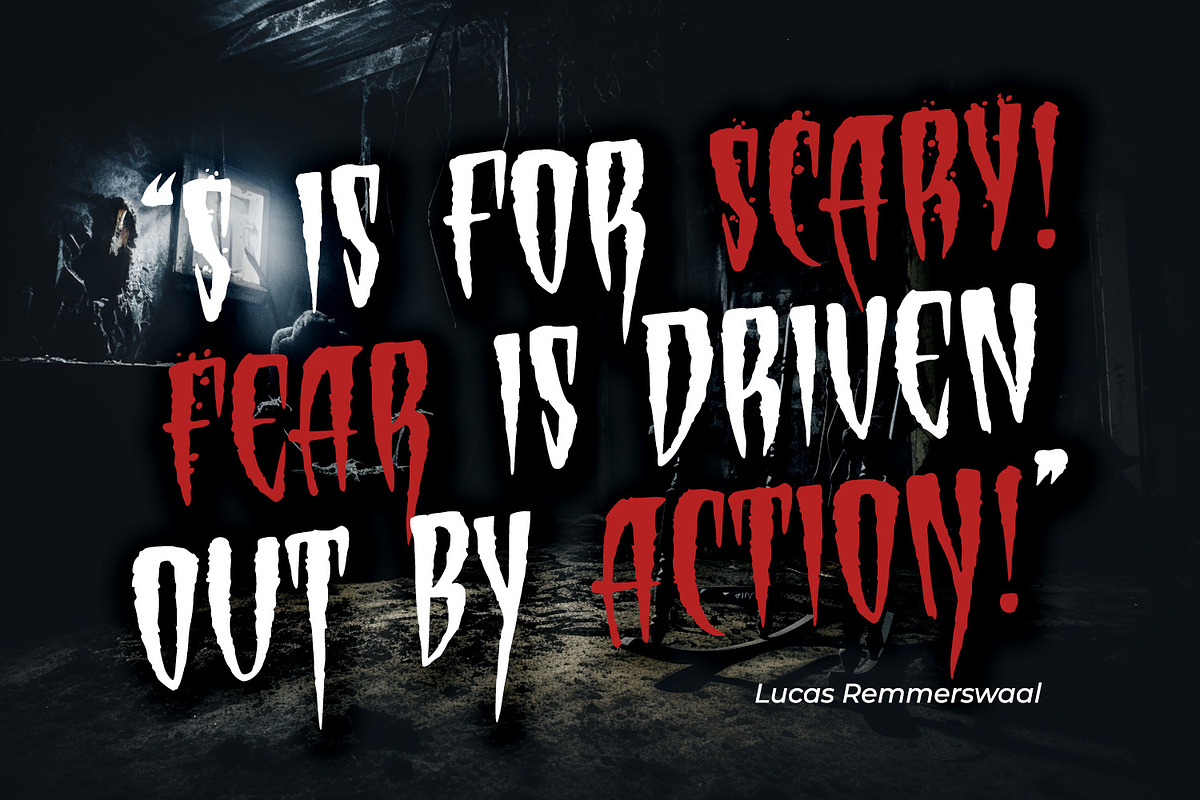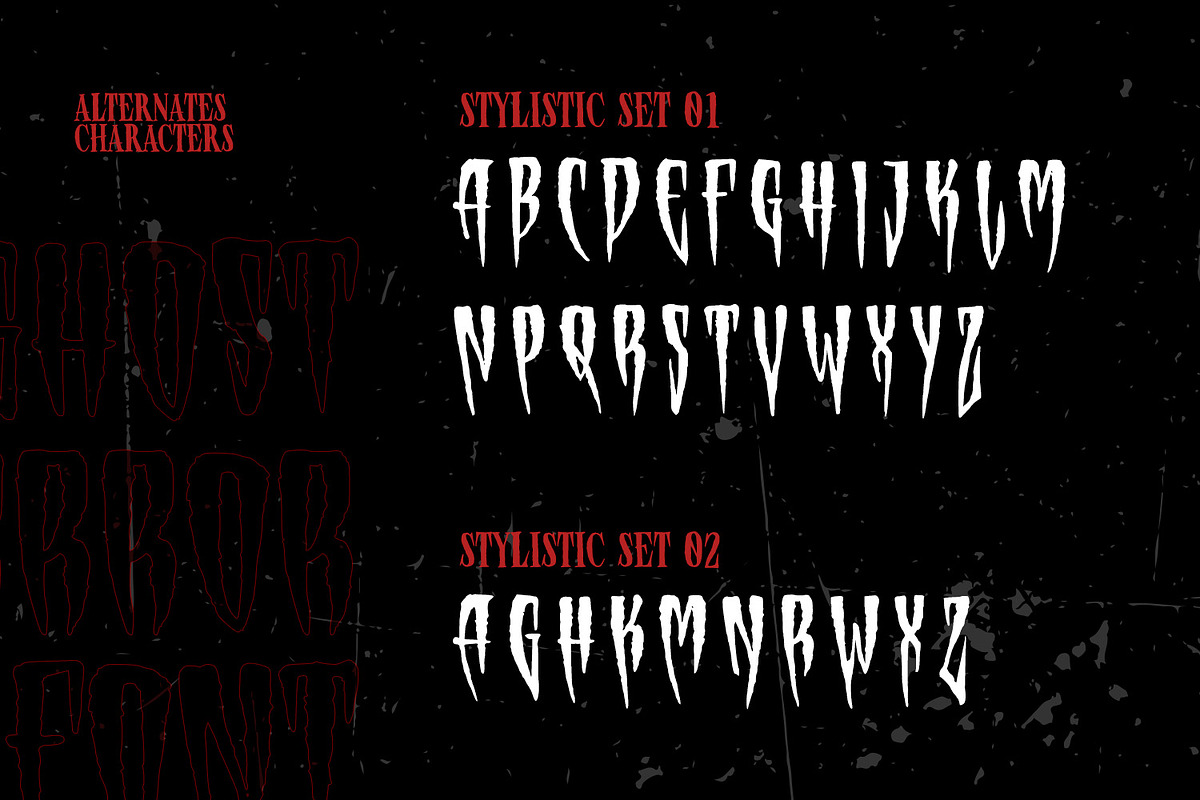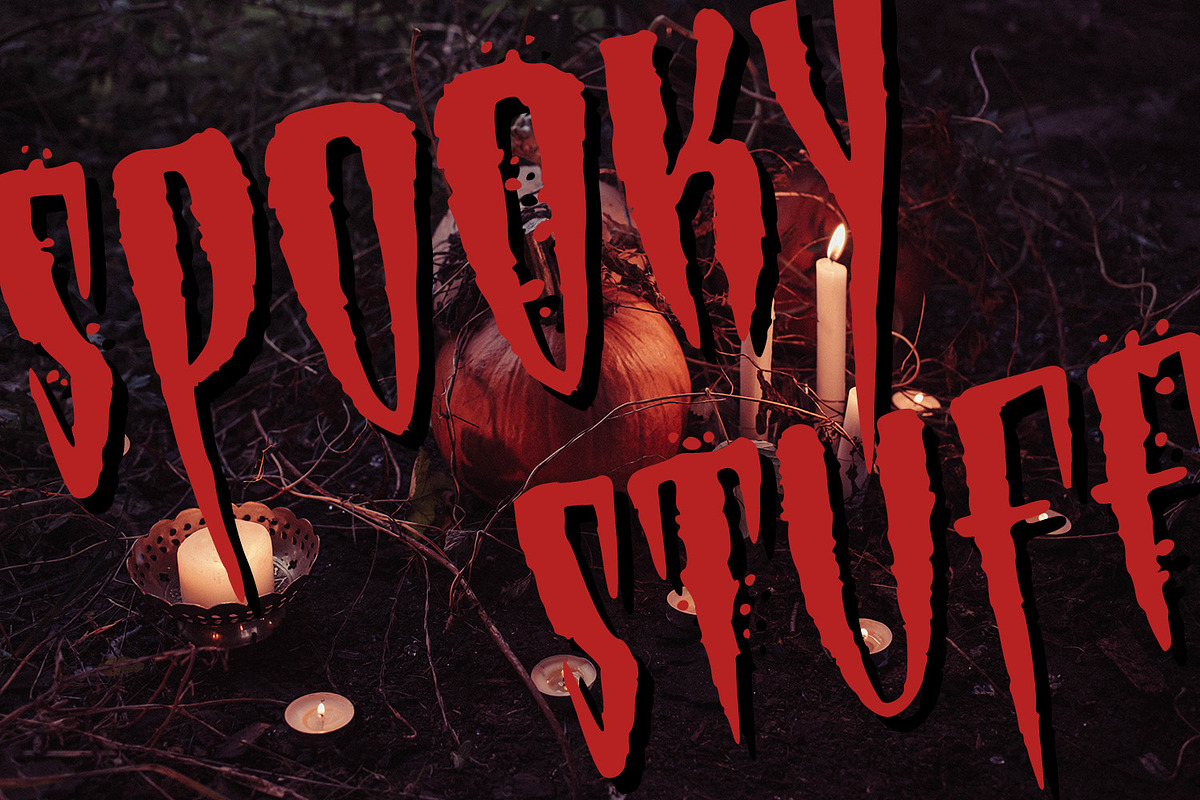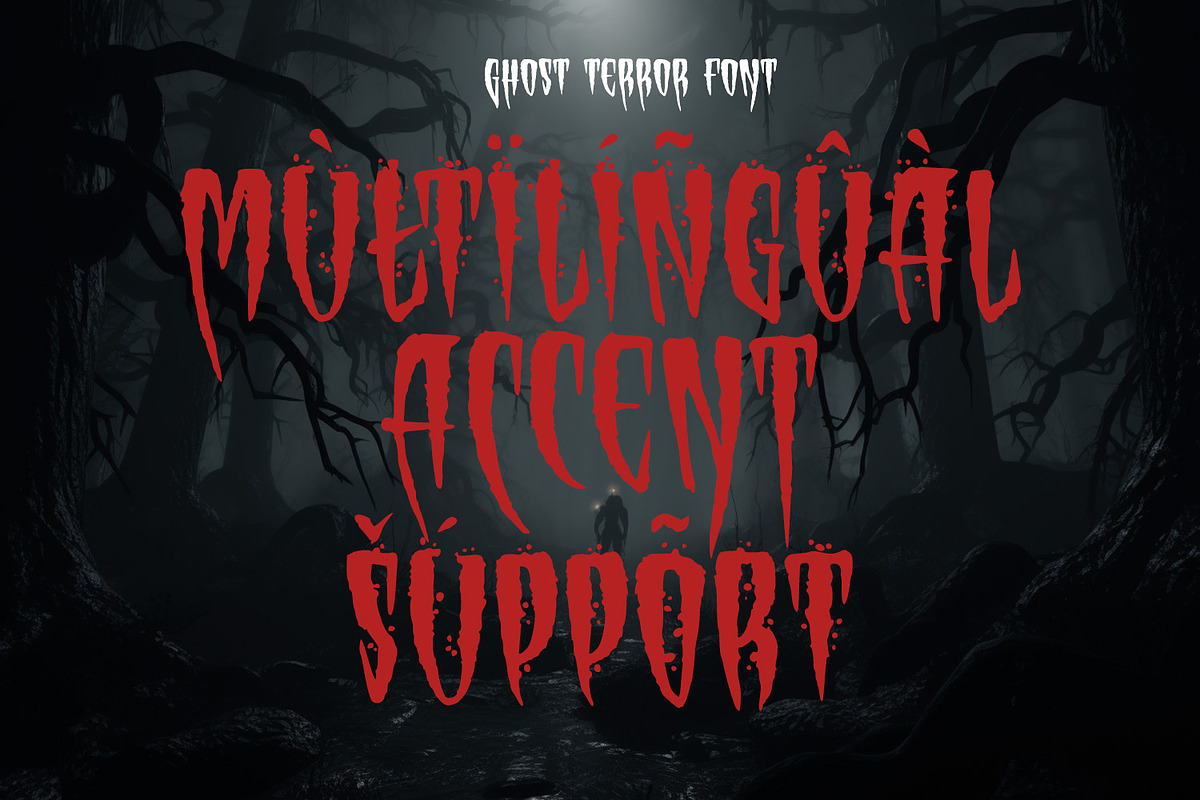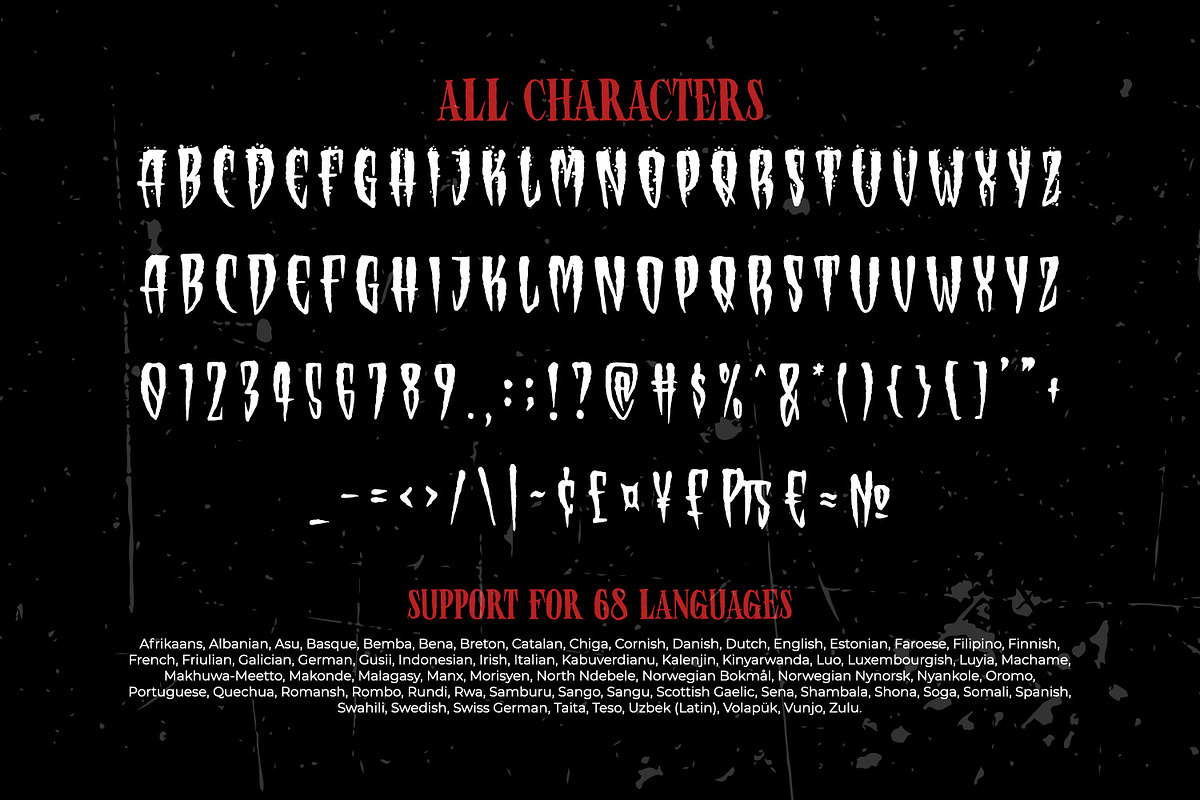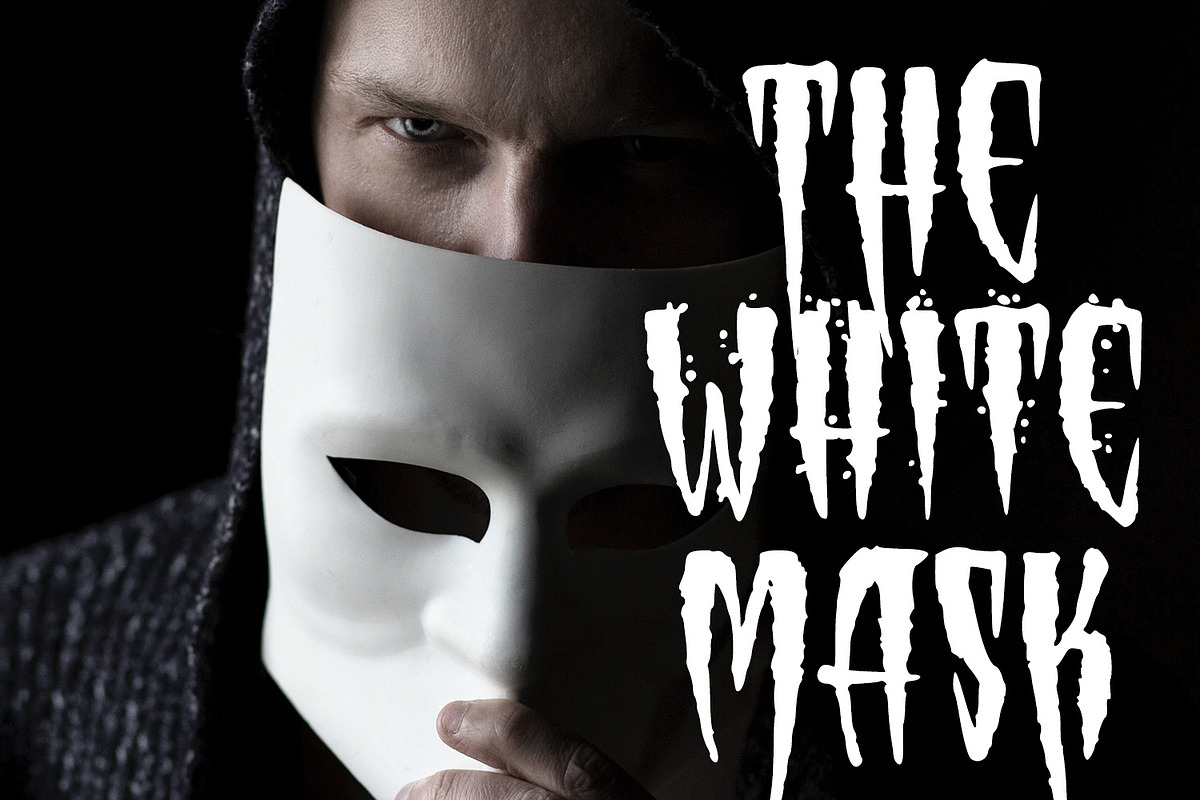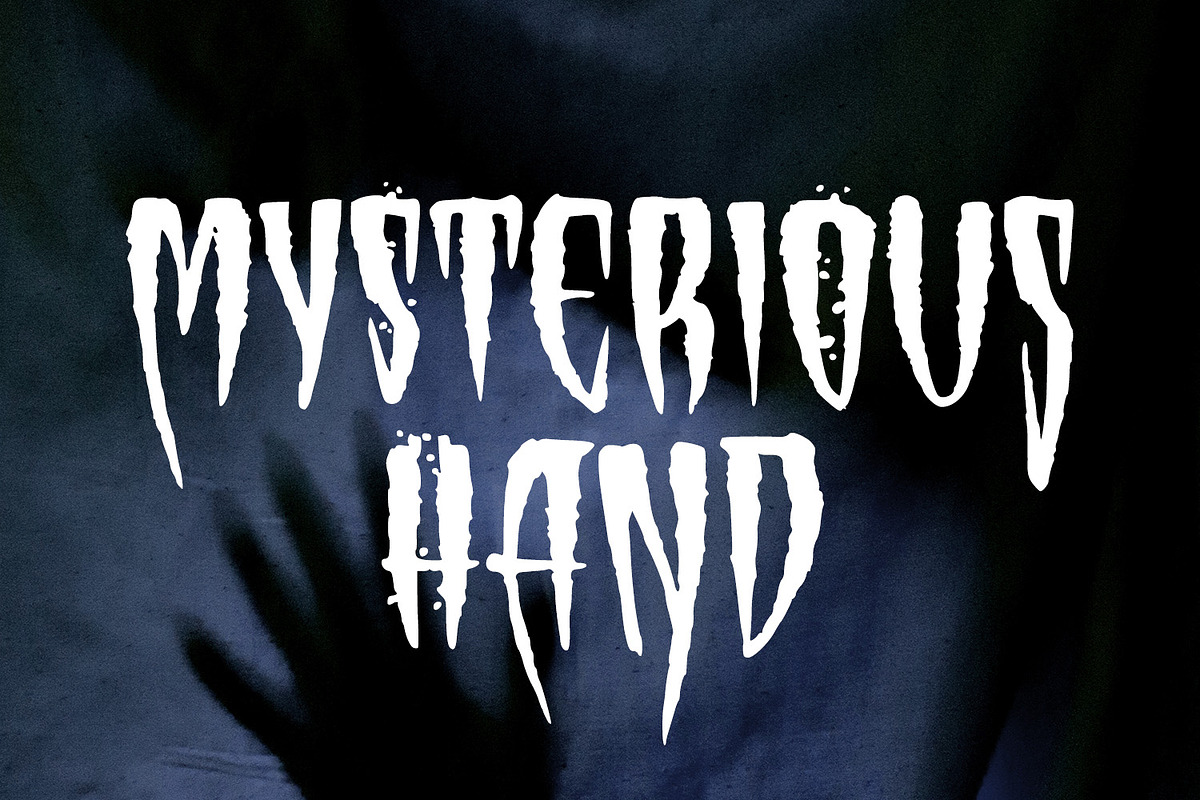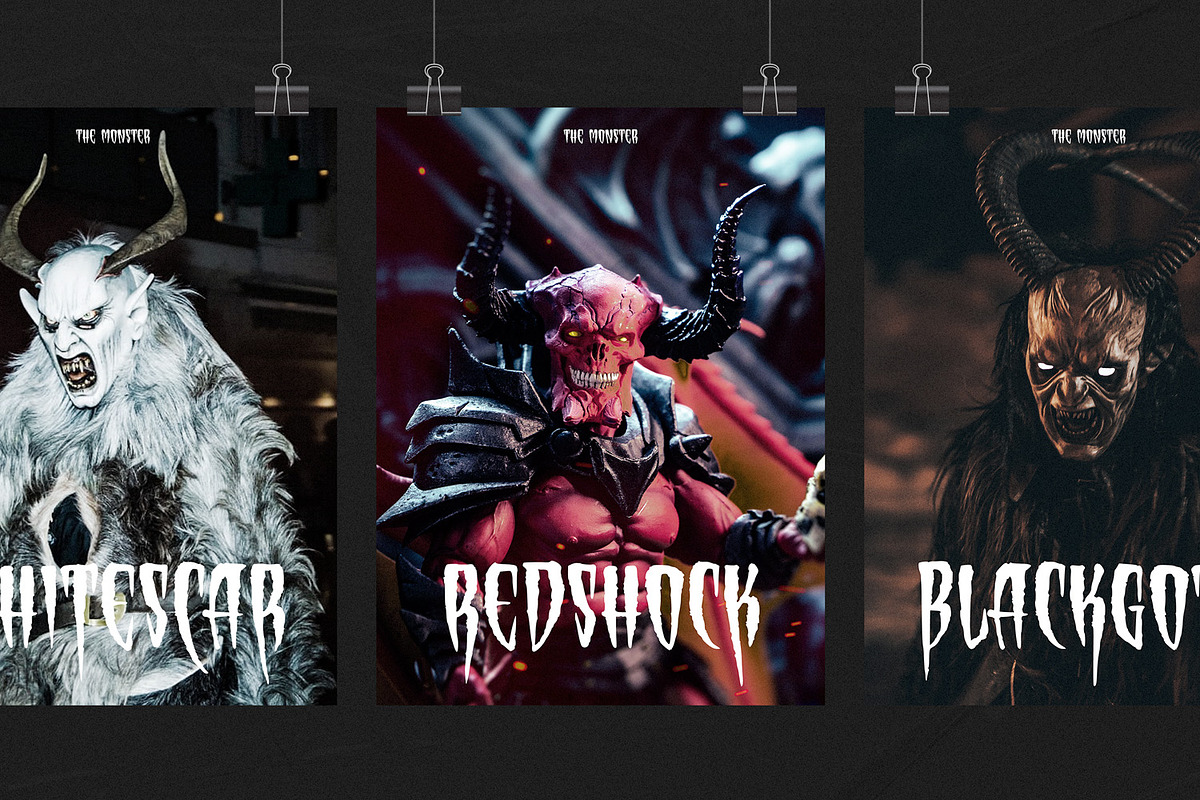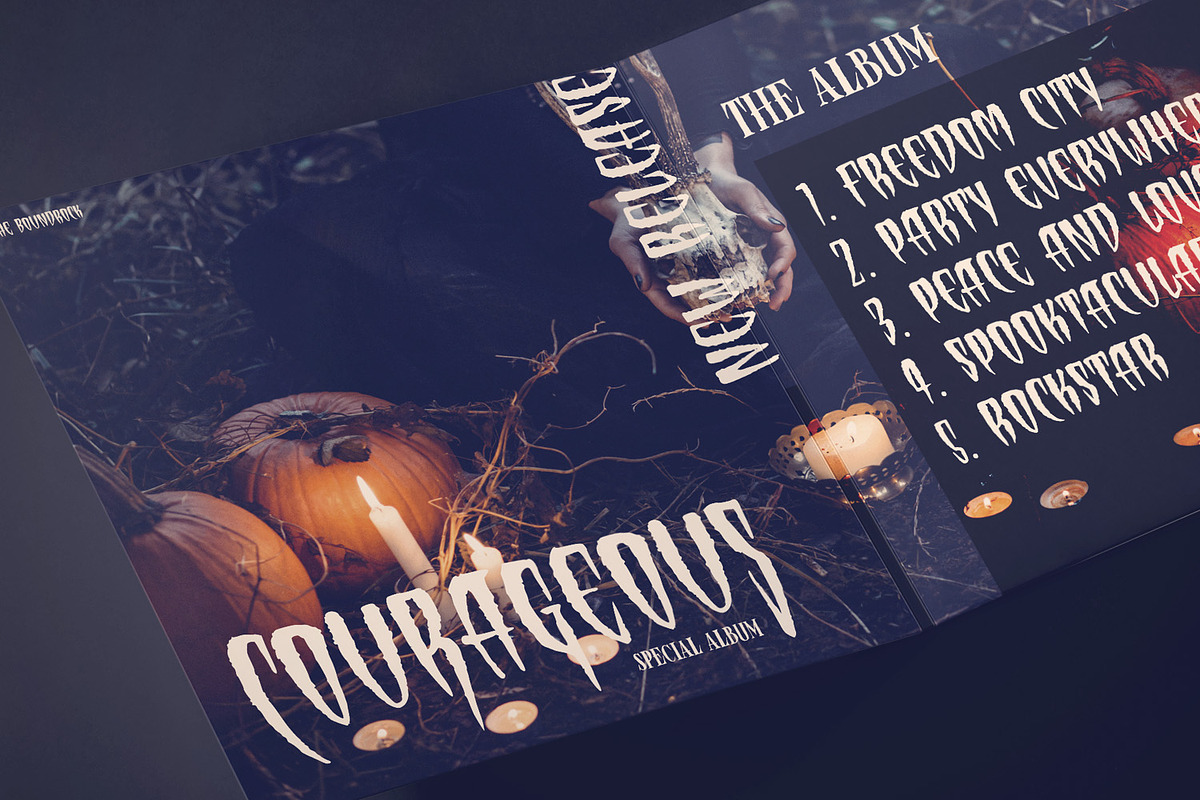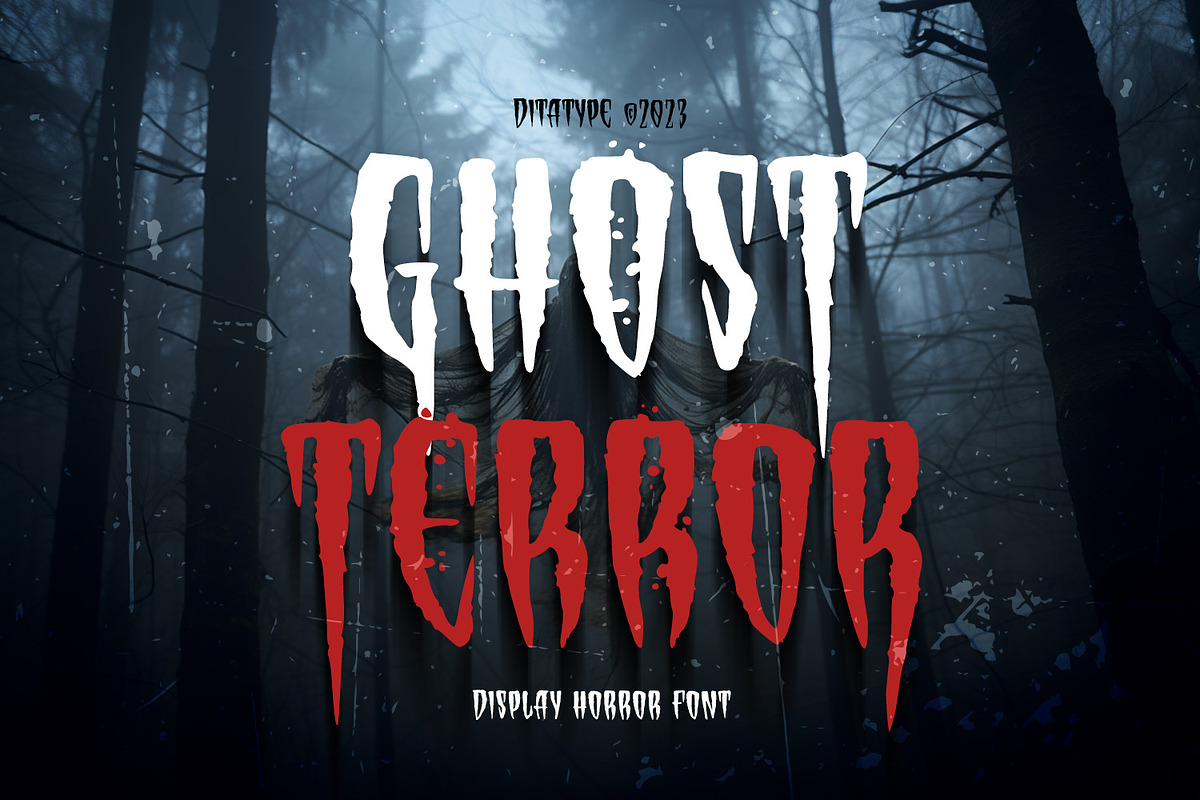
Ghost Terror
Ghost Terror is a captivating display font that will haunt your designs with an eerie allure. Designed in uppercase and bold, this typeface commands attention and exudes an aura of fear. Each letter is meticulously crafted with a rounded shape, and some have sharp edges, adding a sense of unpredictability and suspense. The haunting brush details on each letter further enhance the font's chilling theme, immersing your audience in a world of ghostly terror. With its bold weight and rounded shape, this font brings a sense of familiarity while maintaining an air of otherworldly mystery. The mix of rounded shapes and sharp edges in this font adds a dynamic contrast, giving the font an unsettling and unpredictable appearance. The letters seem to dance between the realms of the living and the undead, capturing the essence of ghostly entities that lurk in the shadows. The brush details in Ghost Terror lend a haunting and handcrafted touch, as if the letters were inscribed by spectral beings. These eerie details add a sense of craftsmanship and an element of horror, creating an atmosphere of supernatural presence. For the best legibility you can use this font in the bigger text sizes. Enjoy the available features here.
Ghost Terror fits in headlines, logos, movie posters, flyers, invitations, branding materials, print media, editorial layouts, headers, and any horror-themed project. Find out more ways to use this font by taking a look at the font preview.